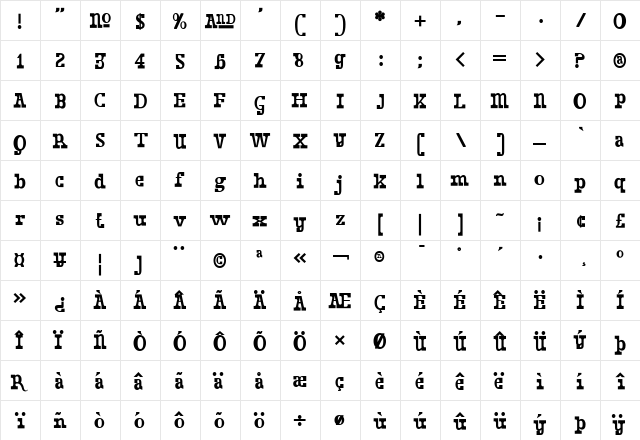
DustEnna Medium
Design Context for DustEnna Typeface
DustEnna is a composed and adaptable typeface that performs quietly and consistently across a wide range of design contexts.